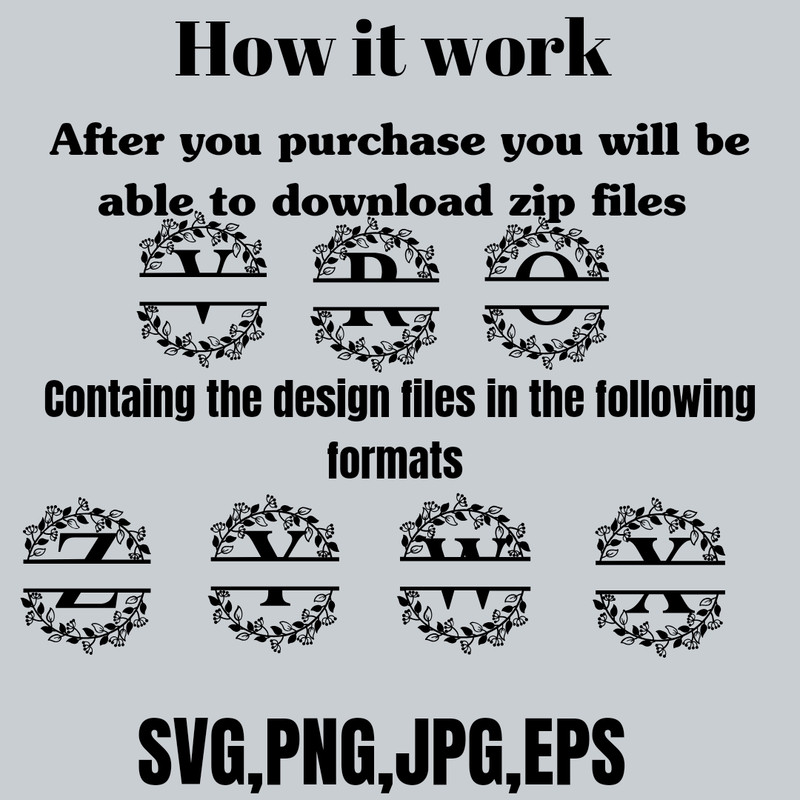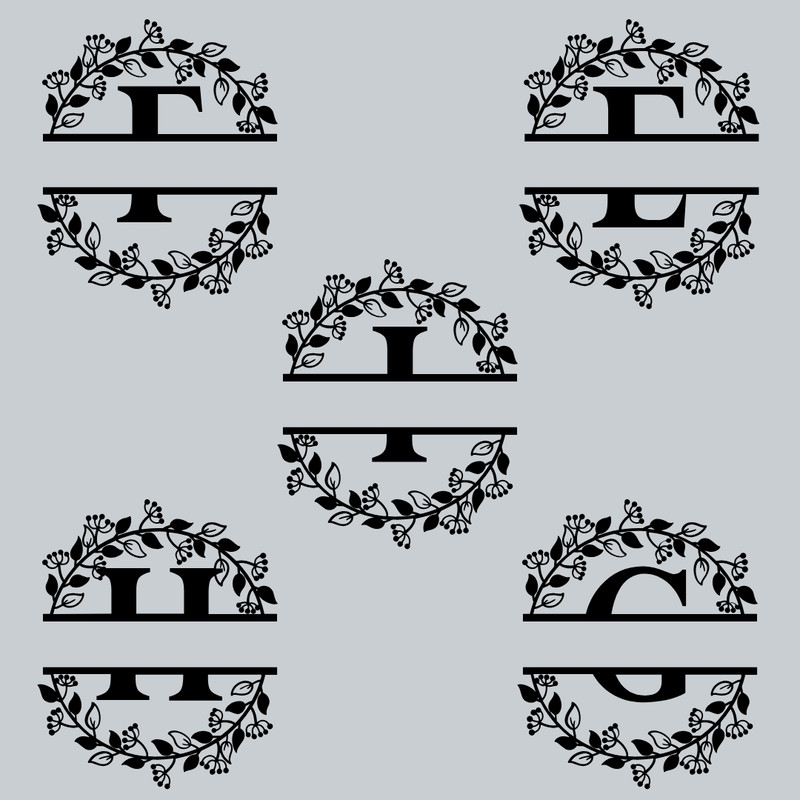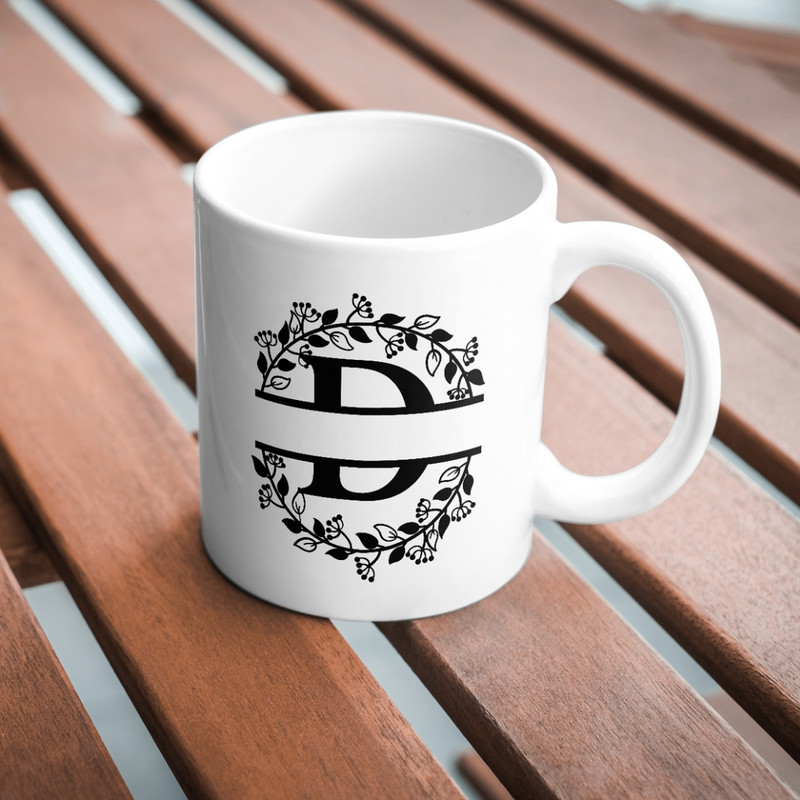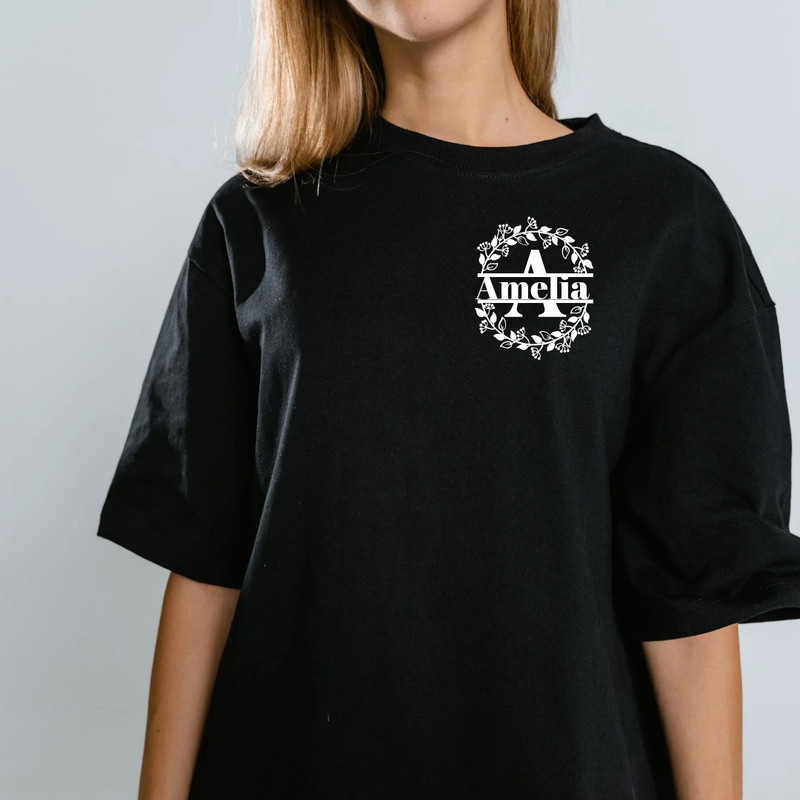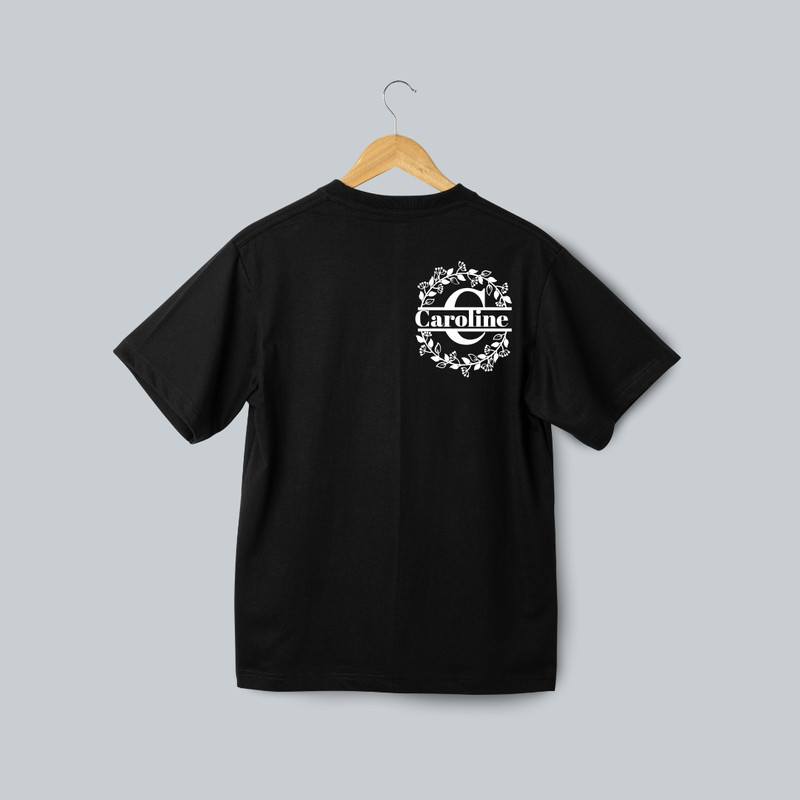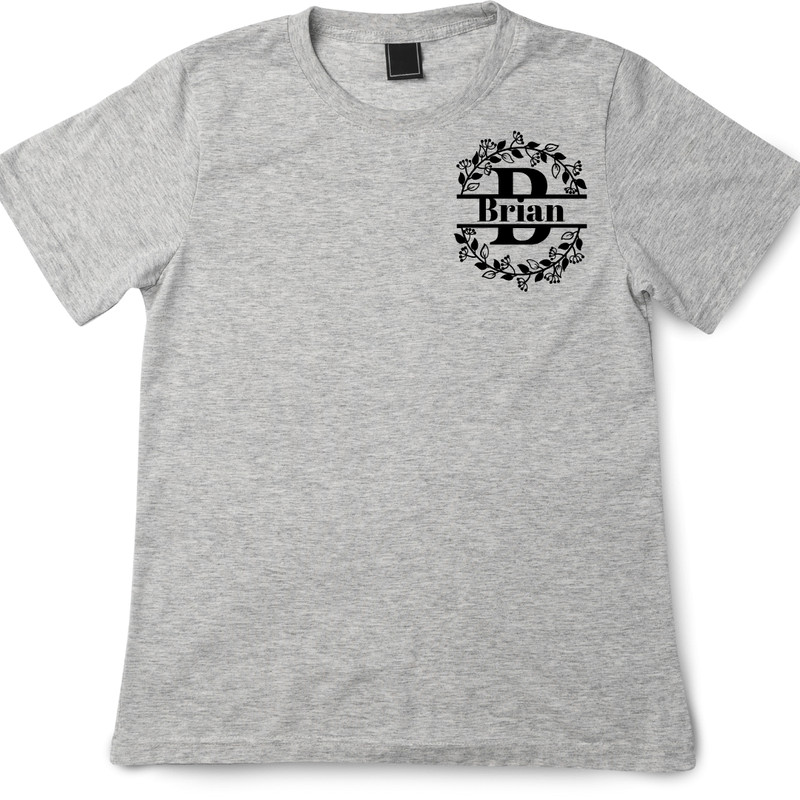
Cute Split Monogram Letters SVG Bundle Family Monogram Font Alphabet SVG Cut Files for Cricut & Silhouette .
This Split Monogram Letters SVG Bundle is perfect for creating personalized family monograms, custom gifts, and home décor. Featuring a versatile alphabet monogram font, these high-quality files are compatible with Cricut, Silhouette, and other cutting machines. We provide the designs in SVG, PNG, JPG, and EPS formats, making them ideal for a wide range of DIY projects, weddings, and craft enthusiasts. Enjoy endless creative possibilities with this complete bundle.